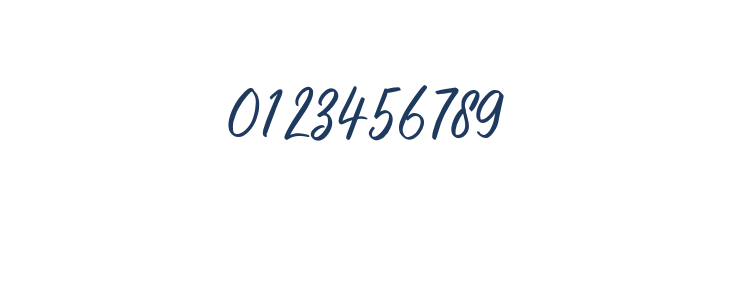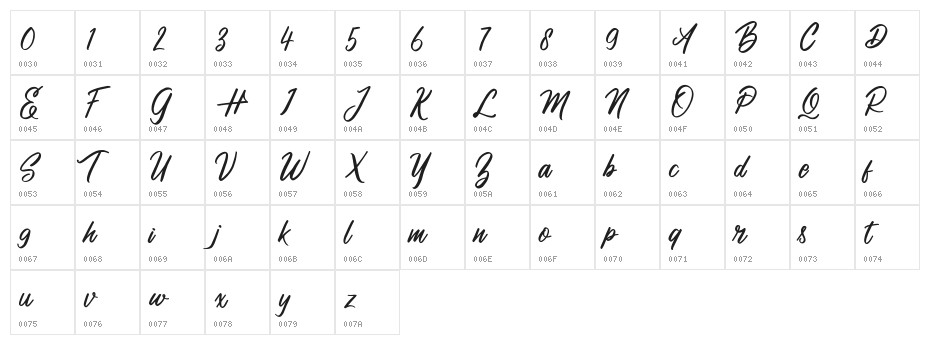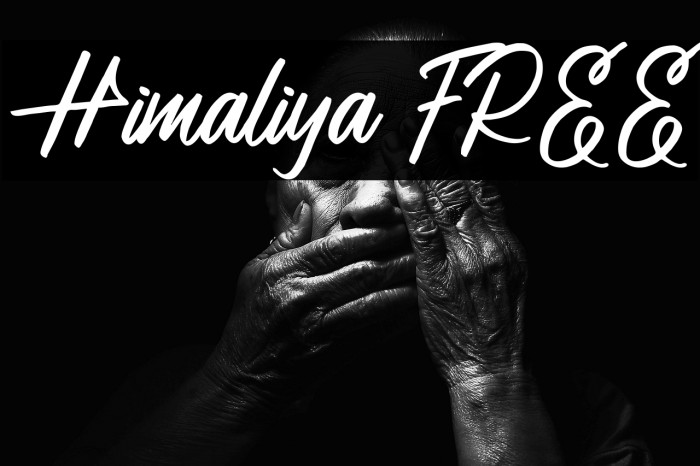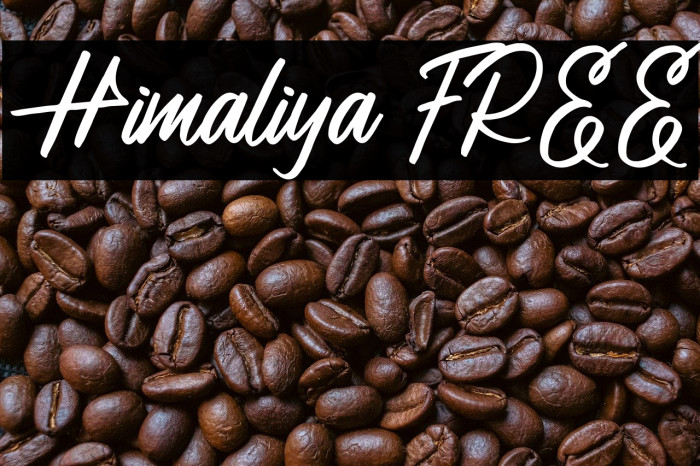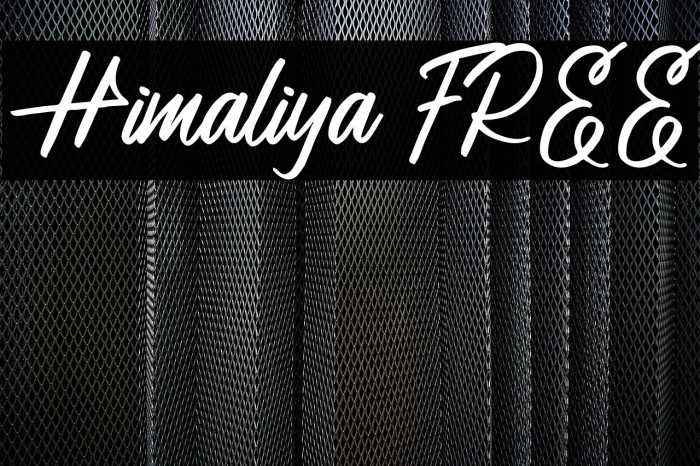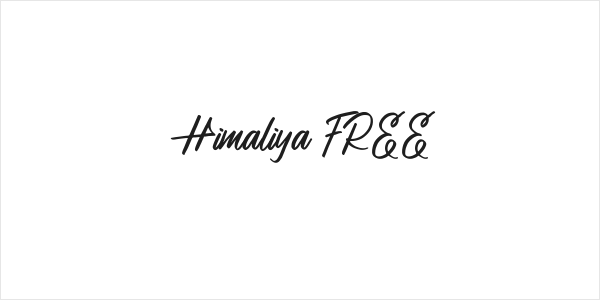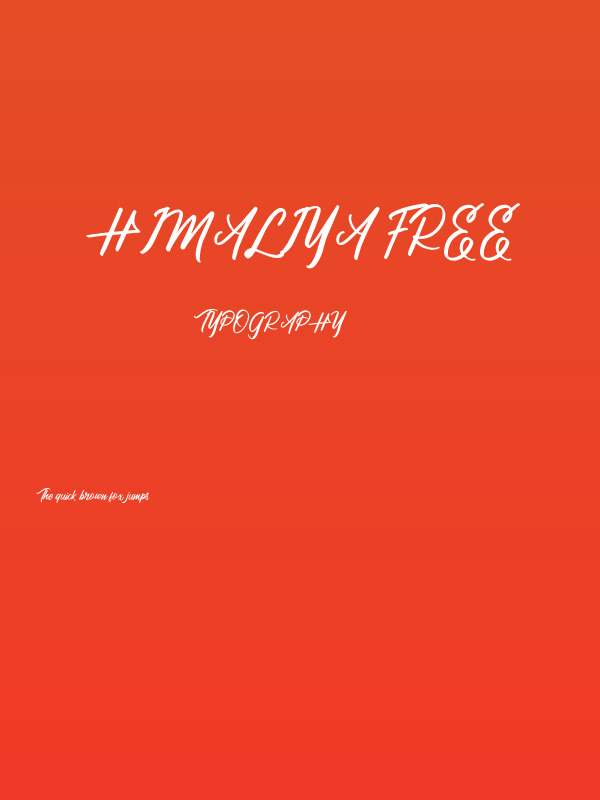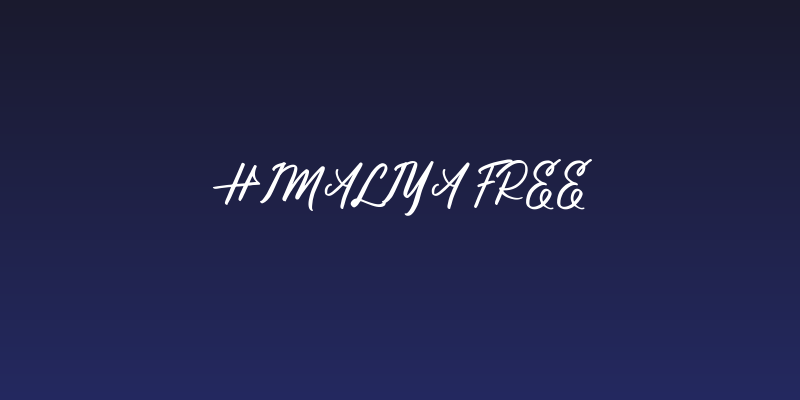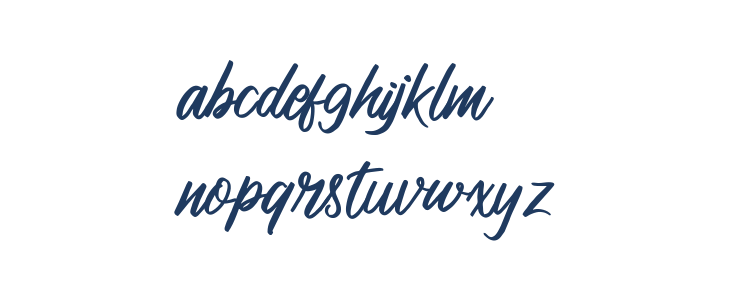
Himaliya FREE Font
Himaliya FREE Description
This font features a bold and flowing script style, characterized by its elegant and cursive letterforms. The uppercase letters are particularly ornate, with sweeping curves and flourishes that give a sense of movement and grace. The lowercase letters maintain a consistent style, offering a smooth transition between characters. The numerals are designed to match the overall aesthetic, with a similar script-like quality. This font is ideal for creating a sophisticated and stylish look, suitable for various design projects that require a touch of elegance.
| Proposed Projects | Ideal for wedding invitations, branding, logo design, and elegant packaging. |